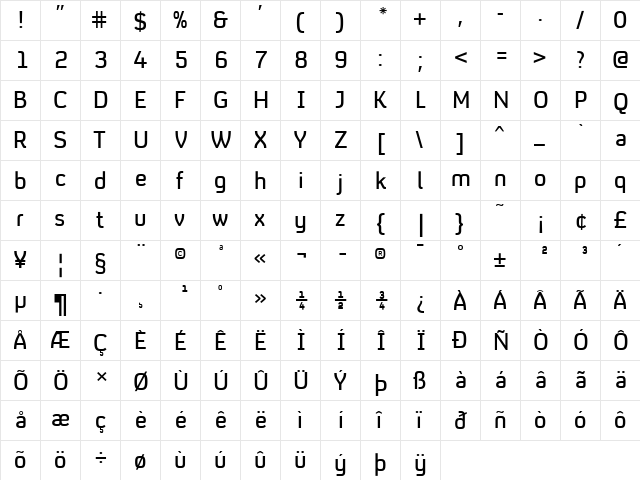
LikeBBC4tMedium Regular Font Preview
LikeBBC4tMedium Regular
Design Context for LikeBBC4tMedium Typeface
LikeBBC4tMedium offers clean, dependable letterforms without strong stylistic allegiance, making it a practical choice for designers who need flexibility.